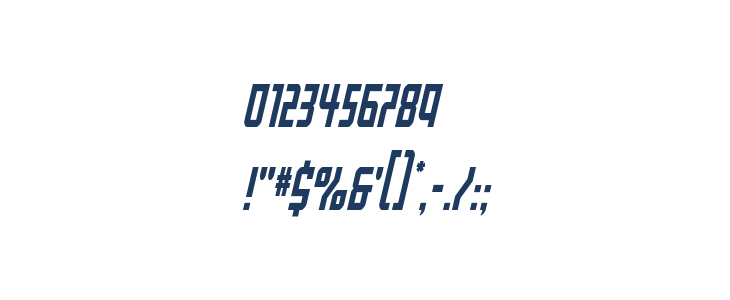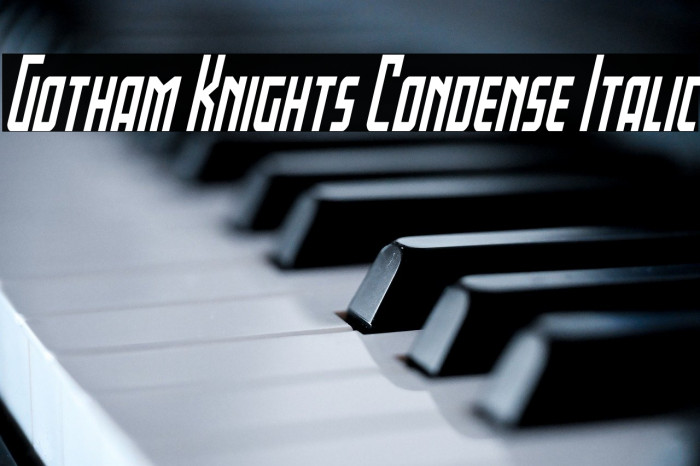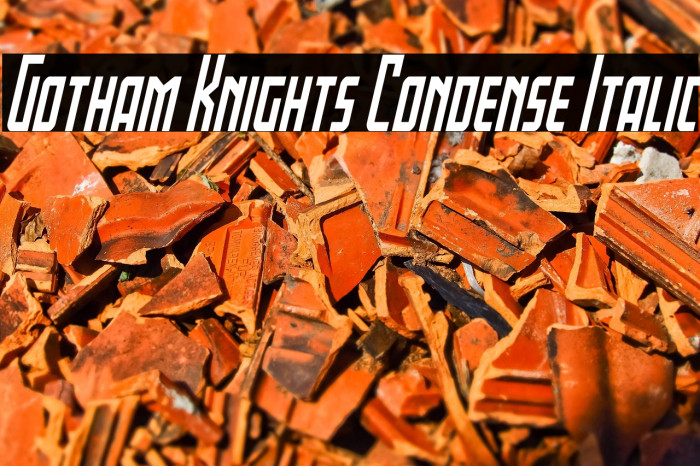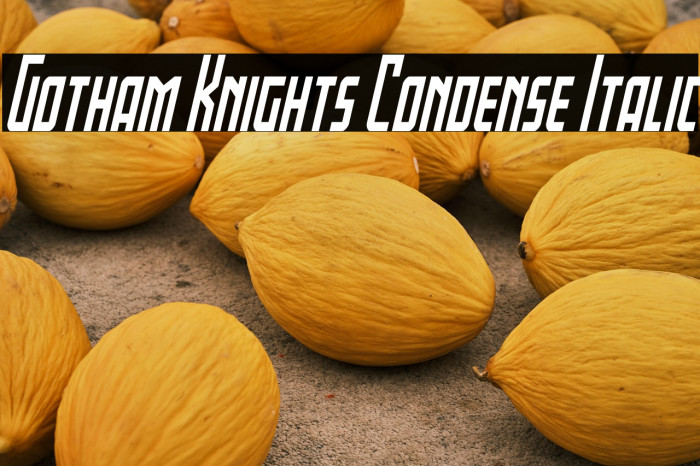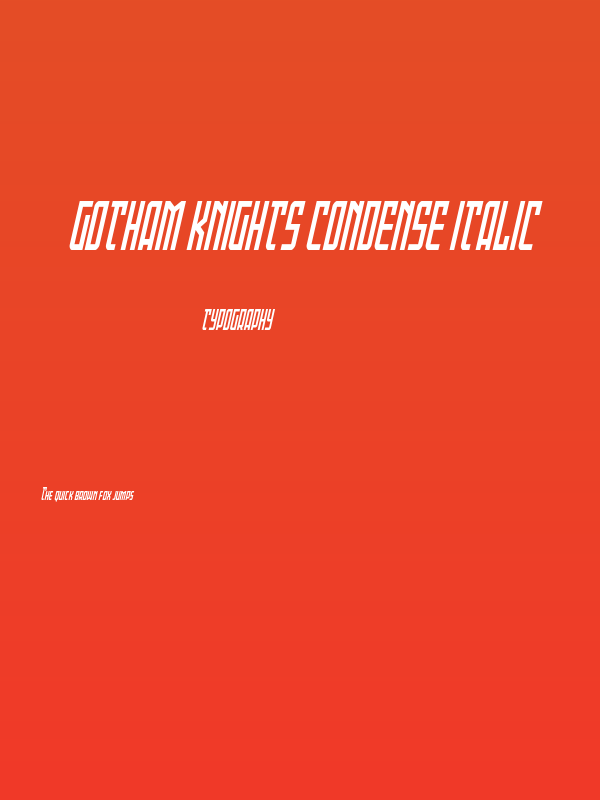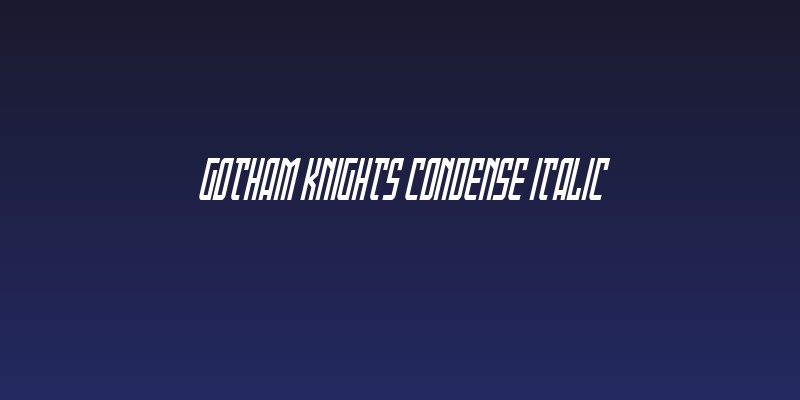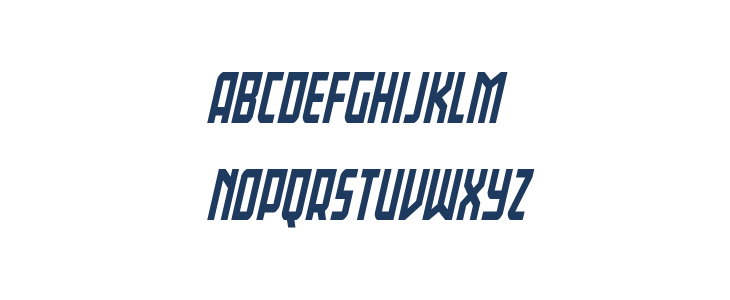
Gotham Knights Condense Italic Font
Gotham Knights Condense Italic Description
This font features a bold and dynamic design with a condensed and italicized style. The characters are sharply angled, giving a sense of motion and energy. The uppercase letters are tall and narrow, while the lowercase letters maintain a consistent height, enhancing readability. Numbers and special characters are designed to match the overall aesthetic, with a futuristic and sleek appearance. The font's strong geometric shapes and clean lines make it suitable for impactful visual statements.